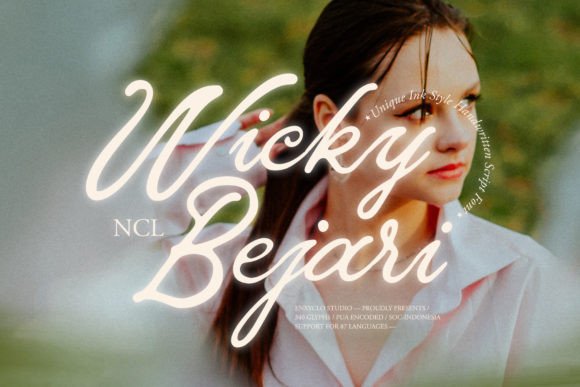
Journey into the realm of elegance and grace with Wicky Bejari, a script font that captivates hearts with its intricate details and enchanting aura. This font is not merely a collection of letters; it is an exquisite work of art, meticulously crafted to evoke emotions and elevate your designs.
Wicky Bejari dances across the page like a delicate ballerina, its curves flowing seamlessly to create a visual masterpiece. Each character is a testament to the artistry and passion poured into its creation, resulting in a font that speaks volumes without uttering a single word.
Immerse yourself in the allure of Wicky Bejari, a font that exudes sophistication and charm. Its timeless beauty transcends trends, making it a perfect choice for those seeking enduring elegance in their designs. Whether you're crafting wedding invitations, branding materials, or heartfelt personal notes, Wicky Bejari adds a touch of magic that leaves a lasting impression.
With Wicky Bejari in your design arsenal, ordinary becomes extraordinary. Its versatility knows no bounds, allowing you to weave your creative vision across a myriad of projects. From elegant logos that command attention to enchanting social media posts that captivate audiences, Wicky Bejari transforms the mundane into the magnificent.
But Wicky Bejari is more than just a beautiful font; it's an emotional journey. Its delicate strokes evoke a sense of nostalgia, romance, and timeless charm. It's a font that speaks to the heart, inviting viewers to immerse themselves in your creations and experience the emotions embedded within each letterform.
Step into the world of Wicky Bejari, where imagination and artistry intertwine to create a font that ignites your creative spirit. Let your designs blossom with elegance, grace, and a touch of undeniable magic.